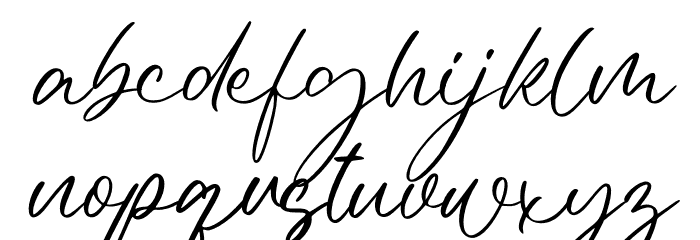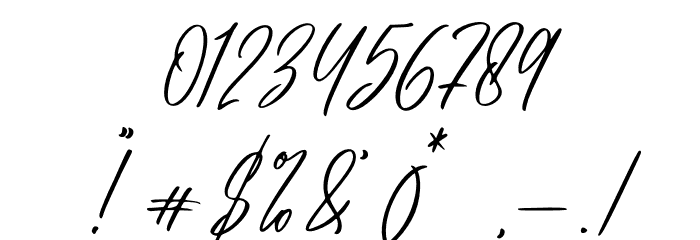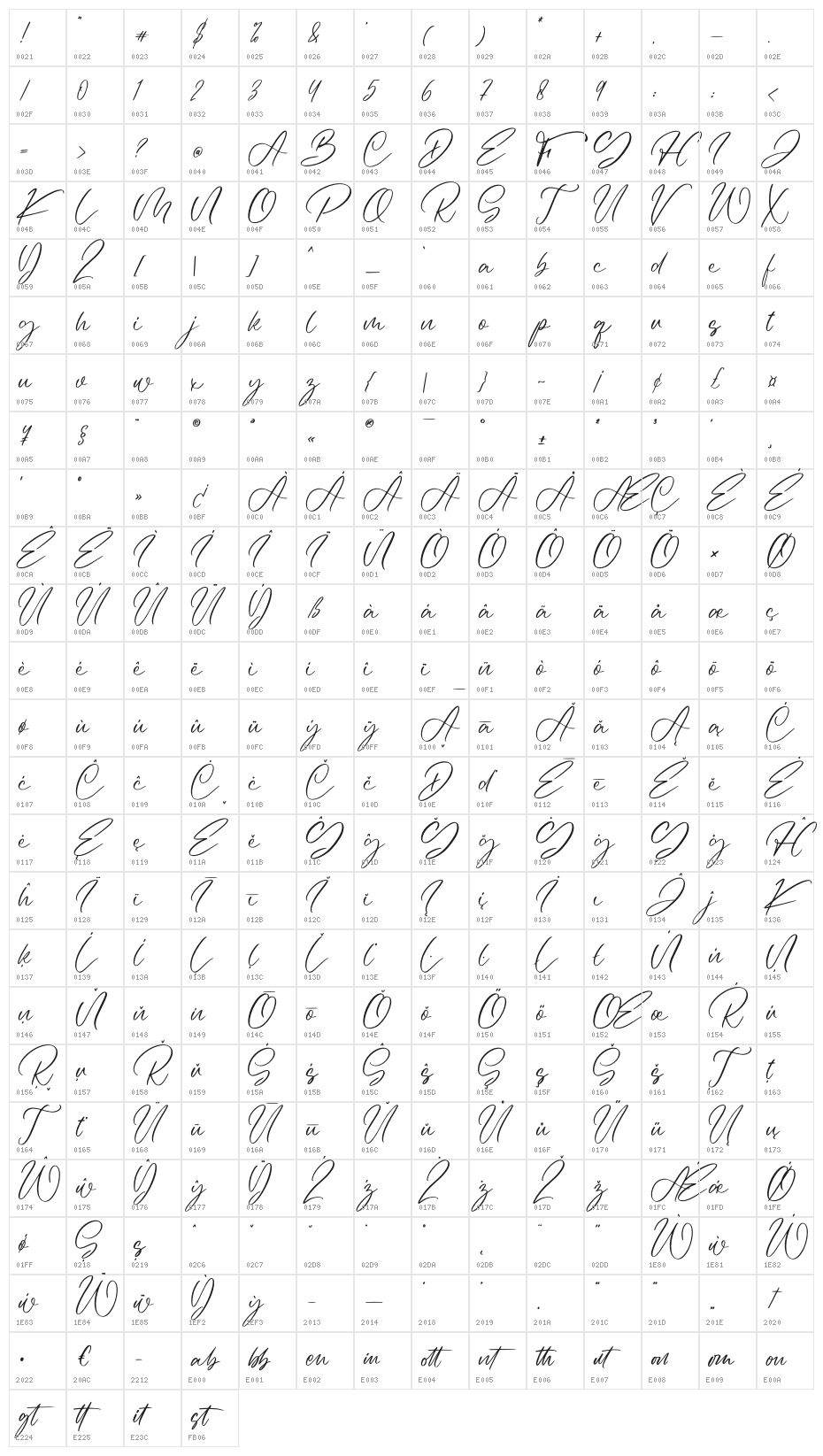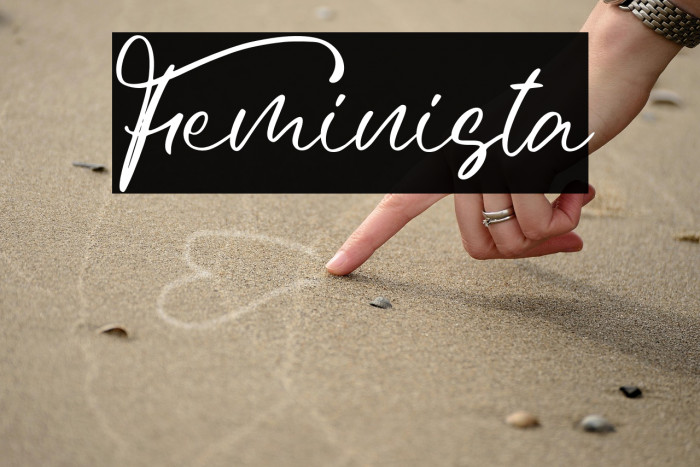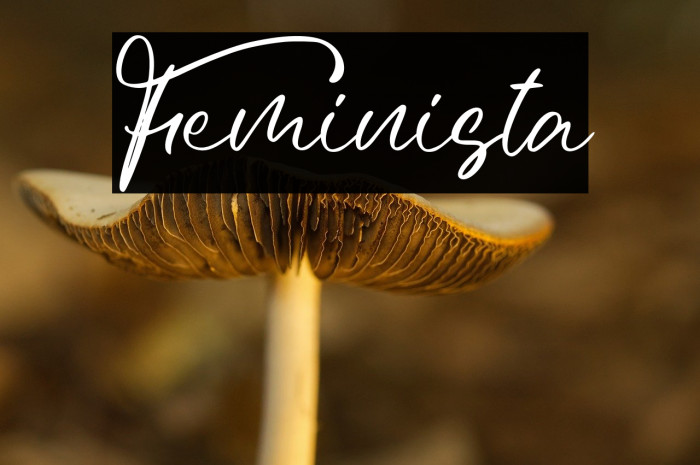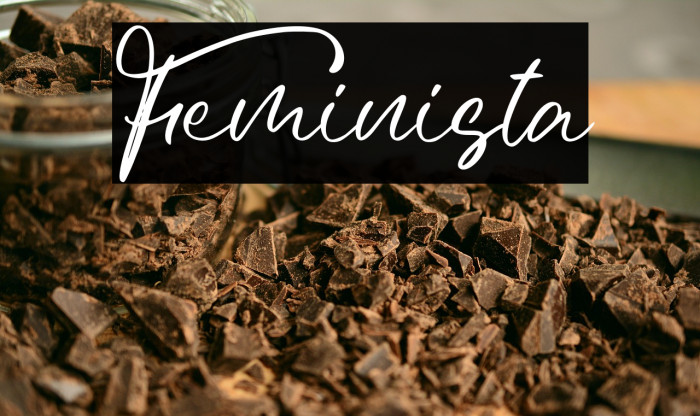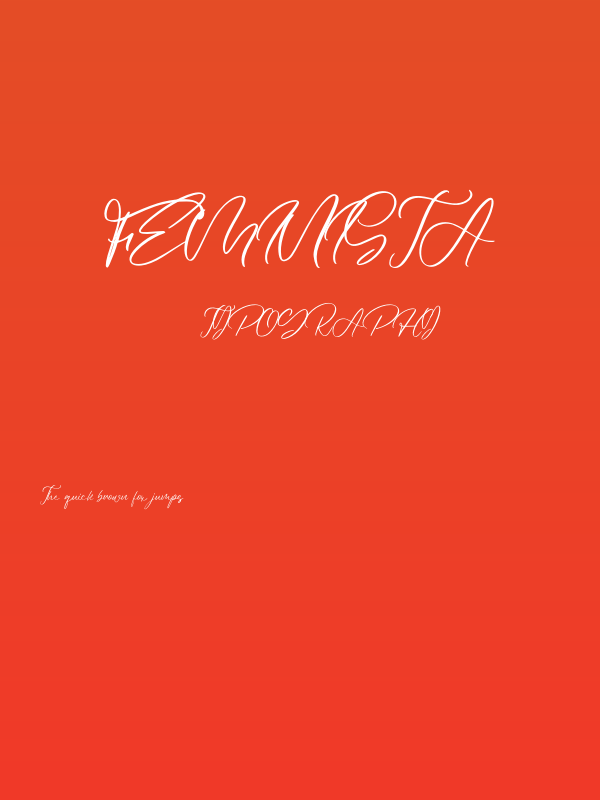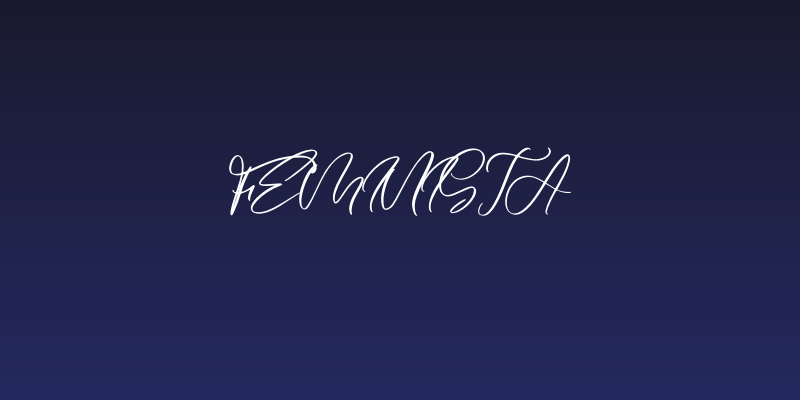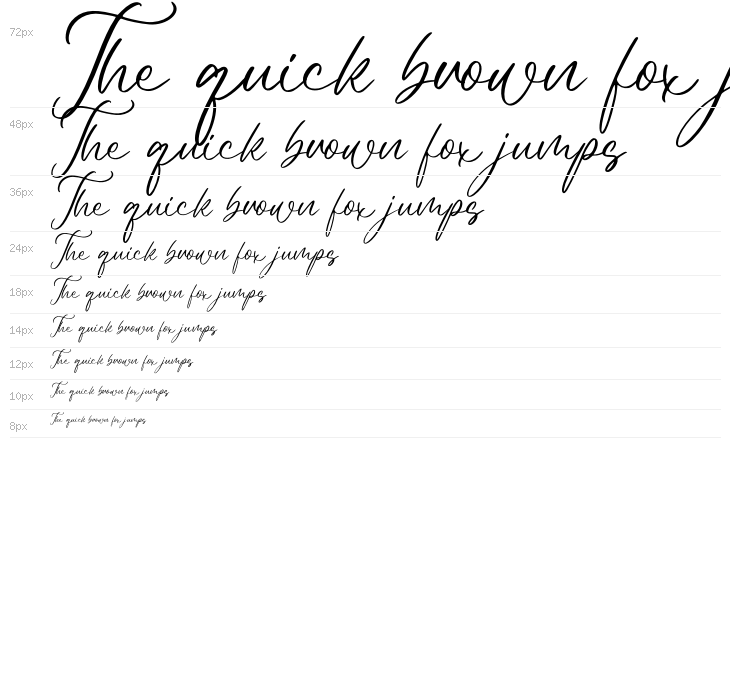
Feminista Font
This elegant script font features fluid, cursive strokes that convey a sense of sophistication and grace. The letters are interconnected with smooth transitions, creating a seamless flow that mimics natural handwriting. The uppercase characters are slightly more embellished, with flourishes that add a touch of flair, while the lowercase letters maintain a consistent rhythm. The numerals and special characters are designed to complement the overall style, ensuring a cohesive look across all text. This font is ideal for projects that require a personal, handwritten touch, such as invitations, greeting cards, and branding materials.
A graceful script font with fluid, cursive strokes and elegant flourishes.
- Font: Feminista
- Proposed Projects: Perfect for wedding invitations, personal branding, greeting cards, and elegant packaging design.
- Category: Script
- Overall Style: Elegant, Handwritten
- Use Case: Invitations, Greeting cards, Branding